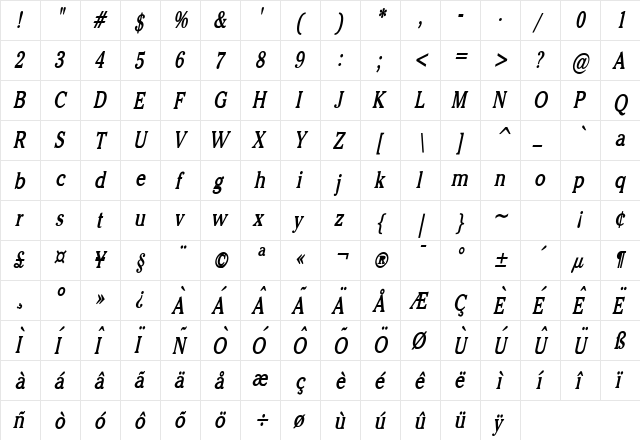
Chelsey Thin Bold Italic
Design Context for Chelsey Thin Typeface
Chelsey Thin offers clean, dependable letterforms without strong stylistic allegiance, making it a practical choice for designers who need flexibility. The dynamic lean of this cut emphasises speed and emphasis in any layout. The heavy weight commands attention and anchors typographic hierarchies.
Pro Tip: Use Chelsey Thin for emphasis, pull quotes, and subheadings where its slanted energy can add rhythm to the layout.